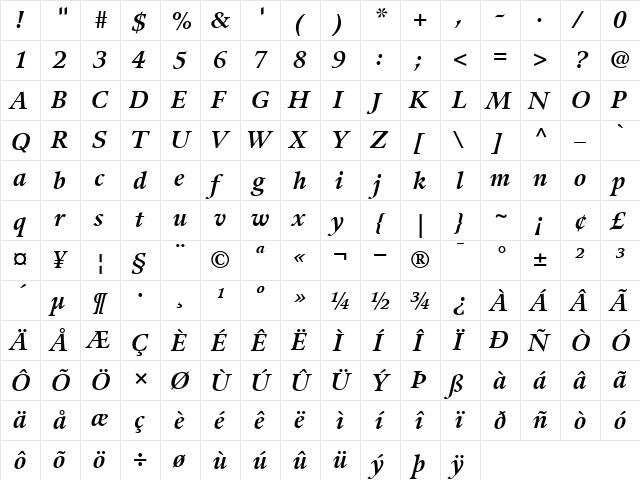
Guardi76 BoldItalic
Design Context for Guardi76 Typeface
Guardi76 is a composed and adaptable typeface that performs quietly and consistently across a wide range of design contexts. The slanted form adds forward momentum and visual energy. The heavy weight commands attention and anchors typographic hierarchies.
Pro Tip: Use Guardi76 for emphasis, pull quotes, and subheadings where its slanted energy can add rhythm to the layout.